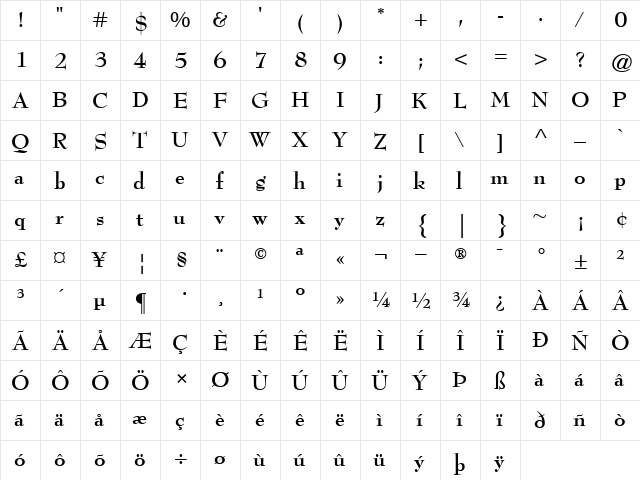
Bernhard Modern Roman Bold
Design Context for Bernhard Modern Roman Typeface
Bernhard Modern Roman offers clean, dependable letterforms without strong stylistic allegiance, making it a practical choice for designers who need flexibility. The heavy weight commands attention and anchors typographic hierarchies.